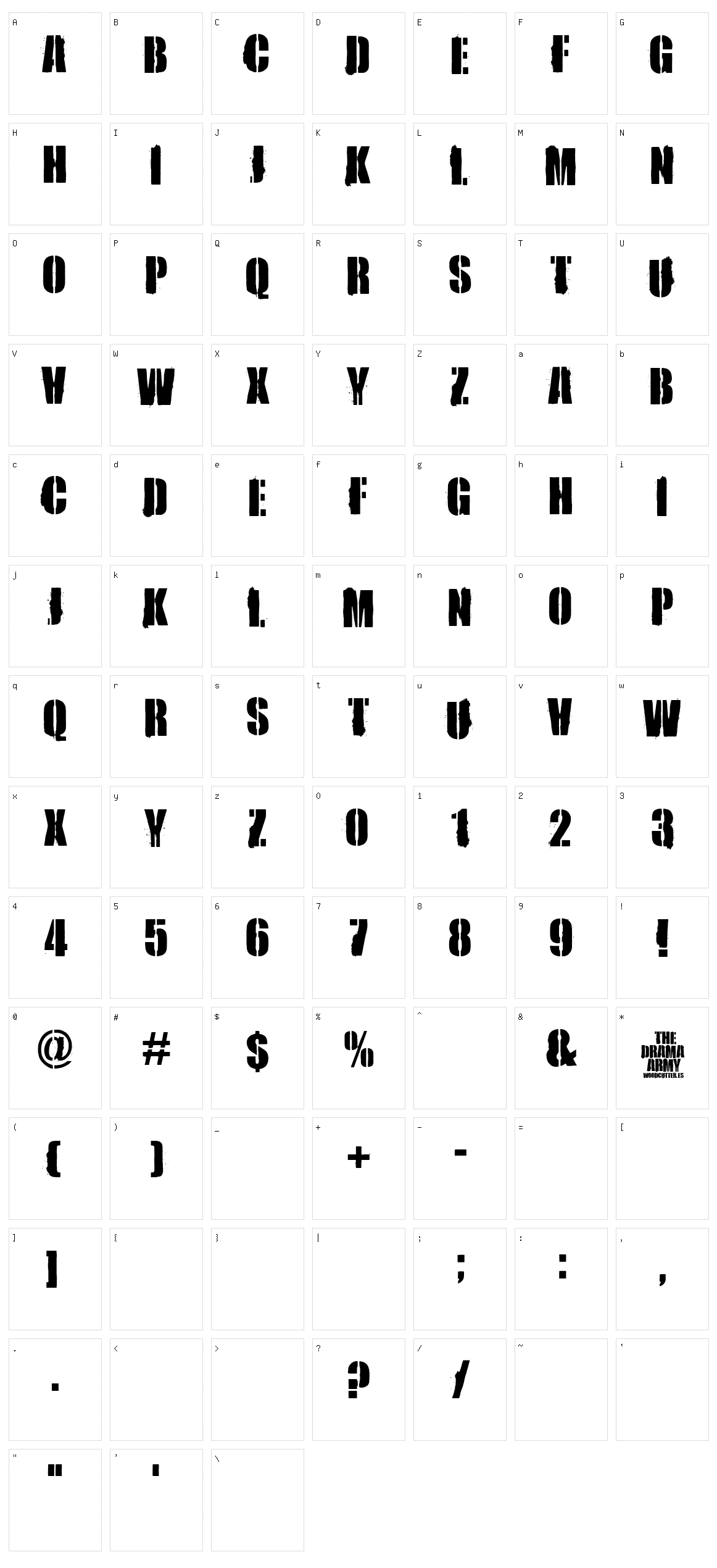
The free font The Drama Army is carefully designed by Woodcutter, showcasing a thoughtful balance of creativity and usability and falls under the Stencil font style. When you download the ZIP file, it contains only 110.71 KB of font files, making it lightweight and quick to download. Please review the license details below to understand permitted usage and distribution rights. If license information is not available, we recommend using this font for personal projects only or contacting the author directly for commercial usage permissions.